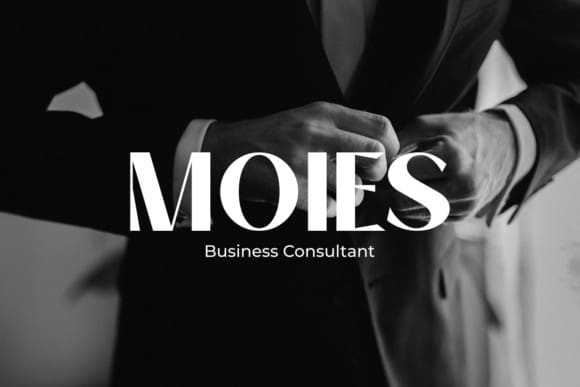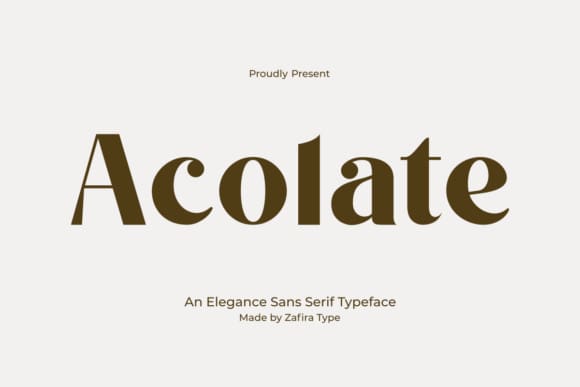
Acolate Font
Acolate Font; a refined, contemporary sans-serif typeface, flawlessly crafted with precision and an eye for details. Embodying a harmonious mix of crisp lines and subtle curves, Acolate offers a stylish allure that can bring your design ideas to life. Whether it’s for logos or promotional content, this font is versatile for diverse design needs. Balancing visual appeal with practical functionality, Acolate can elevate your design work to superior standards. Experience the charm and power of Acolate Font, your gateway to stunning aesthetics.